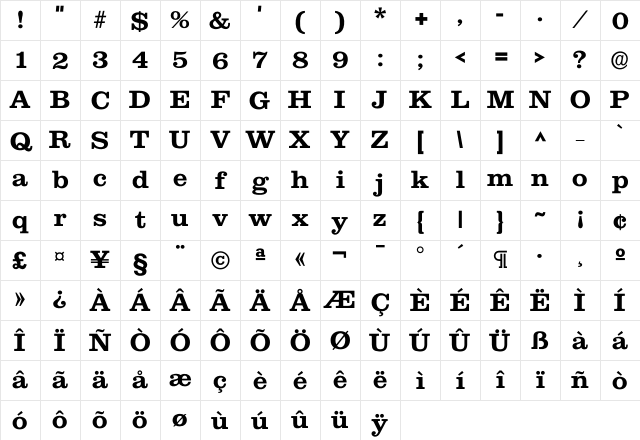
Clarxndon DemiBold Free Font
Clarxndon DemiBold
Style: DemiBold
Clarxndon Family
Clarxndon DemiBold
Design Context for Clarxndon
Clarxndon is a composed and adaptable typeface that performs quietly and consistently across a wide range of design contexts. Its bold stroke weight gives it real presence on the page.